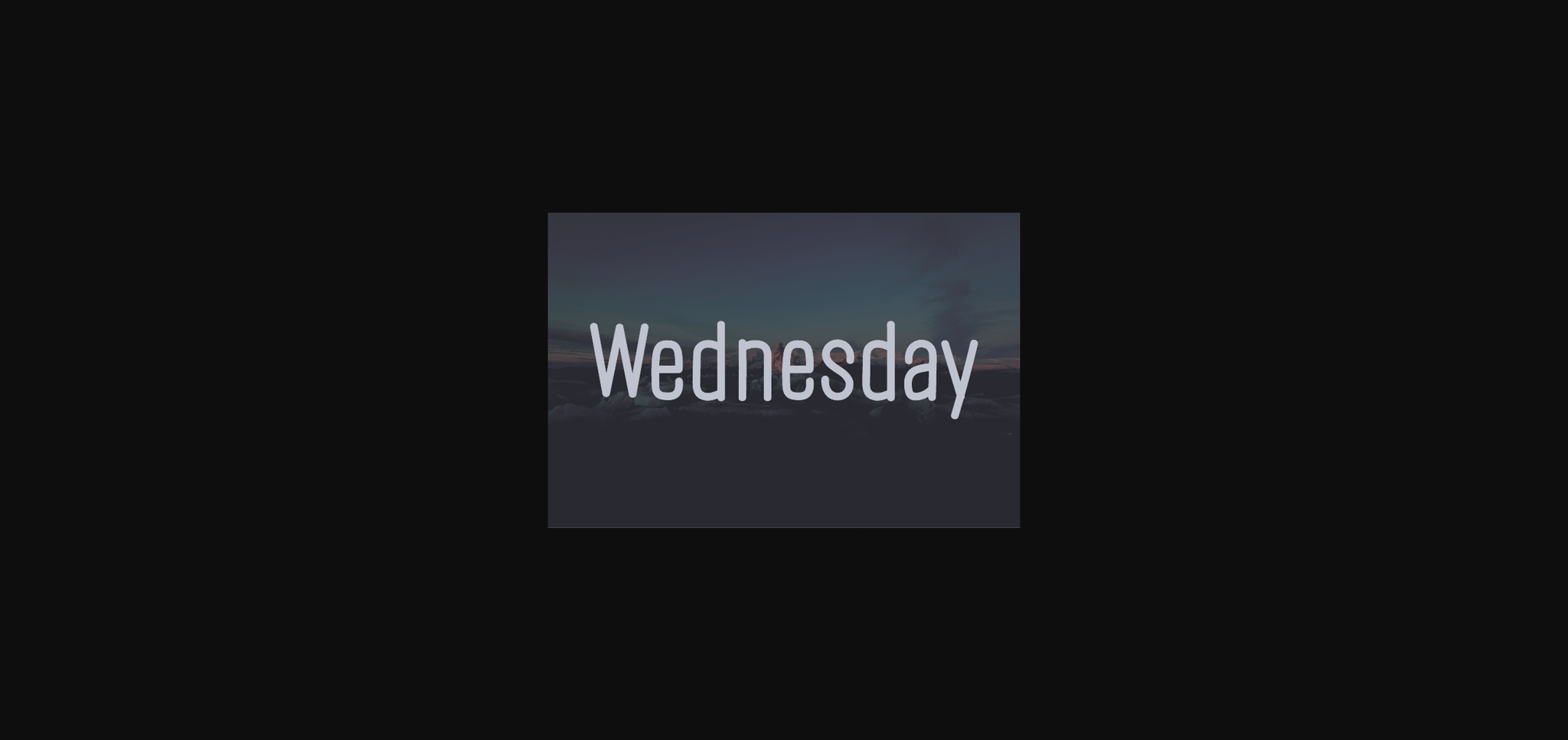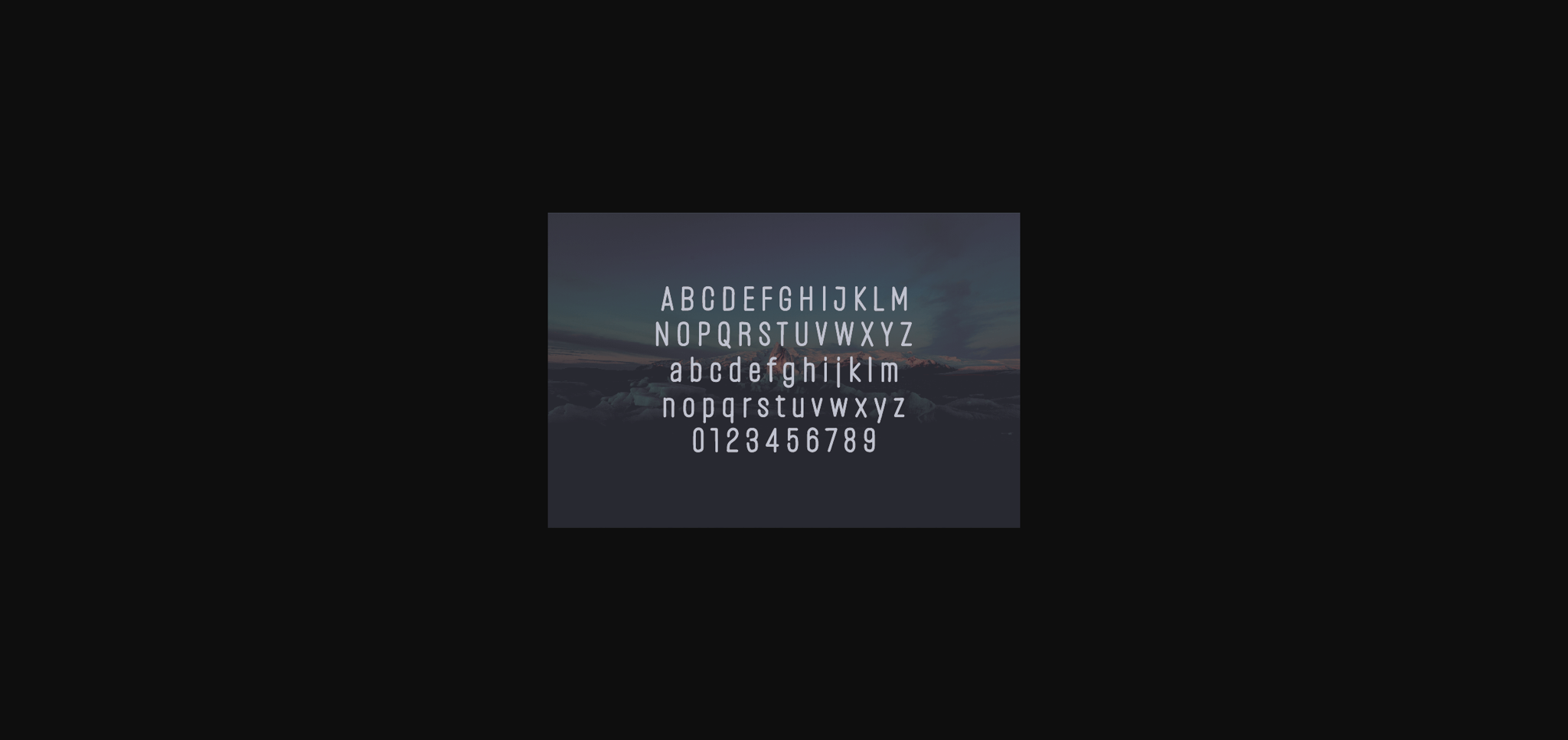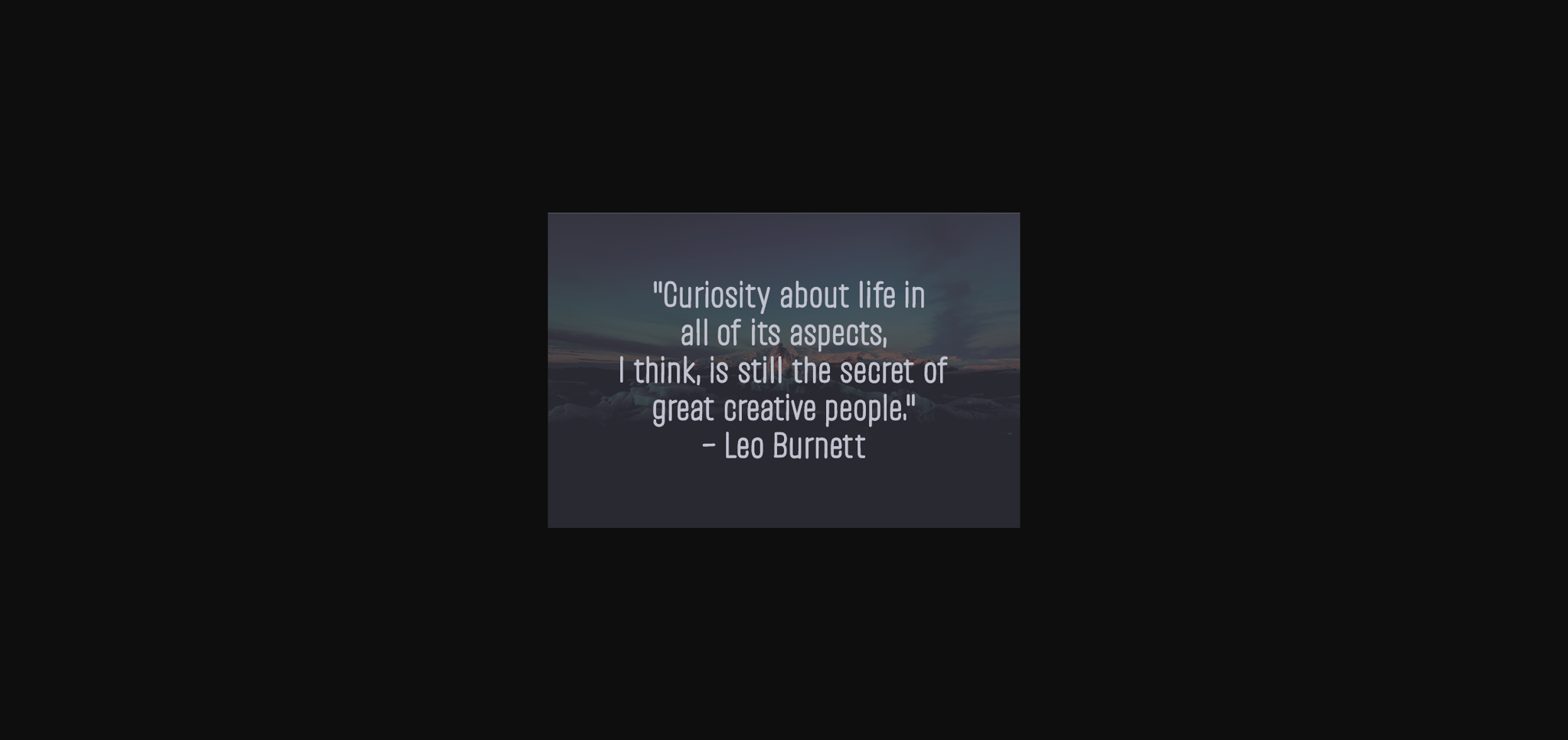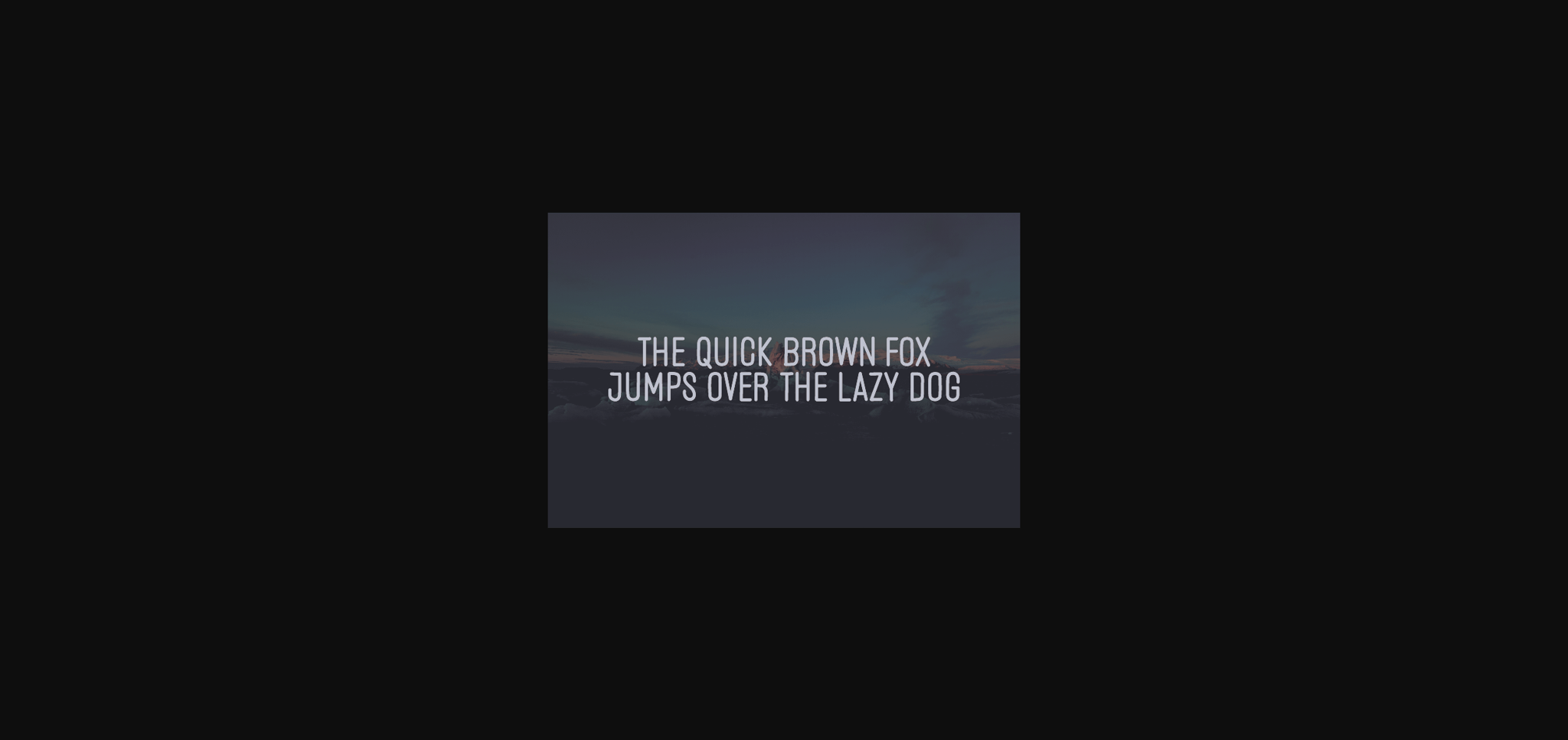
HomeSans Serif FontsWednesday Font Sans Serif Fonts Wednesday Font FacebookXPinterestWhatsApp 1 of 6 ... Wednesday Font Poster 2... Wednesday Font Poster 3... Wednesday Font Poster 4... Wednesday Font Poster 5... Wednesday Font Poster 6... About Wednesday Font Wednesday is a casual and neat sans serif font that impresses through its natural and elegant style. This typeface will enhance your craft with little effort, making your product stand out from the competition. DOWNLOAD NOW People also explored Handmade Font Historyline Font Nalisha Font Mojang Script Font Felicia Signature Font Dusky Pines Font Breaklive Font Basketball Chole Mint Font 327 0 TagsWednesday Font Previous articleMouzard FontNext articleHeartbeat Font LEAVE A REPLY Cancel reply Comment: Please enter your comment! Name:* Please enter your name here Email:* You have entered an incorrect email address! Please enter your email address here Website: Save my name, email, and website in this browser for the next time I comment. Personal Use Free Aliqa Personal Use Free Read more about this font Berry Personal Use Free Read more about this font New Normal Personal Use Free Read more about this font Charletto Personal Use Free Read more about this font BLOG Using Fonts in Digital Marketing: Tips to Strengthen Your Brand Identity In the realm of digital marketing, every visual element plays a crucial role in shaping a brand's identity, and fonts are no exception. The... Free Fonts Risk: Why Free Fonts Can Be Dangerous for Designers Top 10 Handwritten Fonts That Elevate Your Designs How to Install and Use Fonts on Windows, macOS, and Web Projects